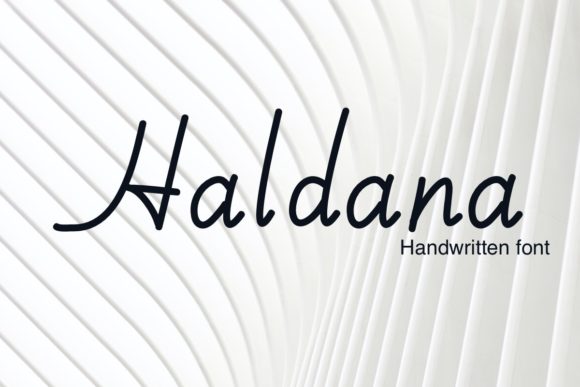
Feast your eyes on the Haldana Font, a calligraphic masterpiece, a testament to elegance. Born from the creative forge of PeamCreations, Haldana is not just a font; it's an experience, a journey through the world of beautiful handwritten artistry. With its graceful curves, delicate strokes, and enchanting charm, Haldana is the perfect culinary companion, ready to transform your culinary creations into edible masterpieces, sure to leave a lasting impression.
Unleash the art within, let your imagination roam free, and embark on a creative voyage with Haldana. Effortlessly express your ideas, narrate your stories, and showcase your culinary expertise with this font that dances and flows like a symphony on paper. Create menus that allure, wine labels that enchant, and packaging that speaks of culinary excellence. Haldana breathes life into your designs, transforming them into captivating works of art that whisper of elegance and sophistication.
Dive into the boundless possibilities that await you with Haldana. Its versatility knows no bounds, extending beyond the realm of culinary arts. Embrace its timeless beauty in wedding invitations, heartfelt letters, and artistic endeavors. Let Haldana's elegant strokes add a touch of refinement to your personal projects, making each creation a reflection of your unique style and impeccable taste.
With Haldana as your creative ally, mundane becomes magnificent, and the ordinary is elevated to the extraordinary. Step into the world of Haldana, and discover the power of a font that transforms ideas into visual poetry, where every word carries the weight of elegance and sophistication. Let your creativity flourish, your imagination soar, and your designs captivate with the magic of Haldana.